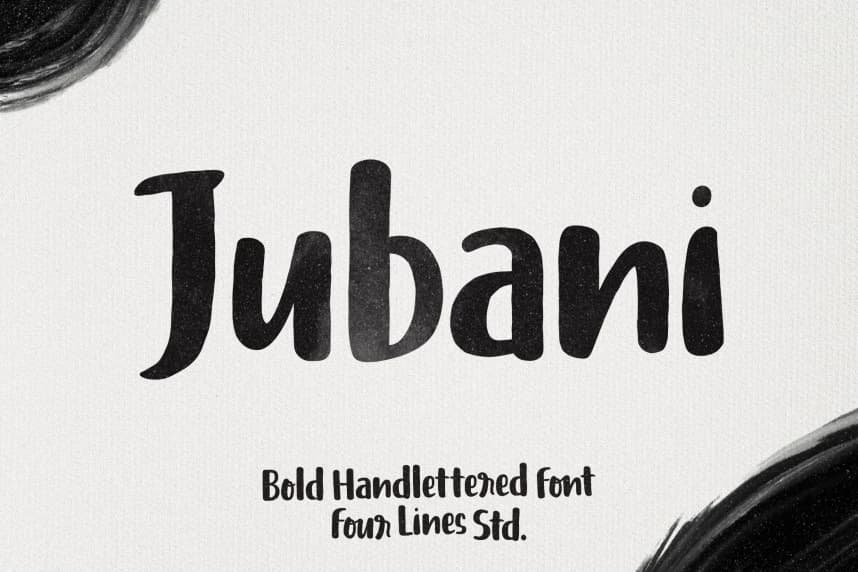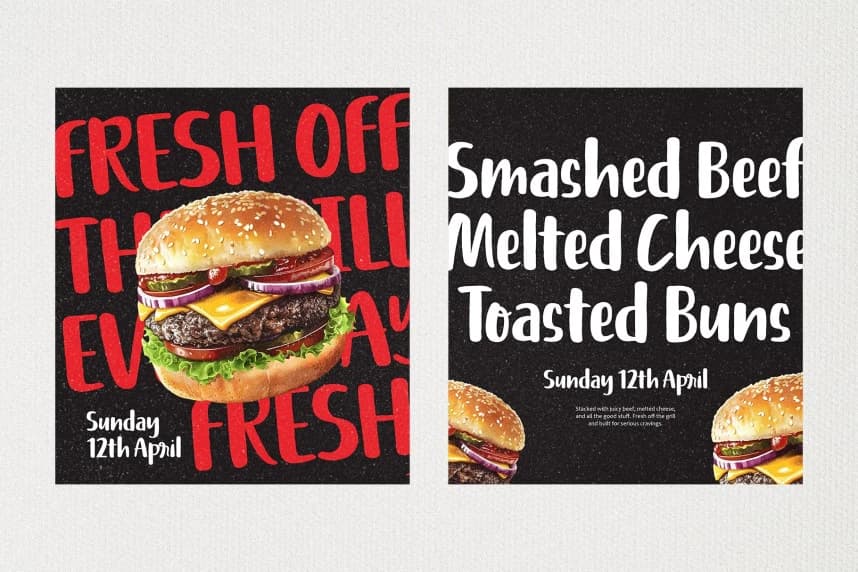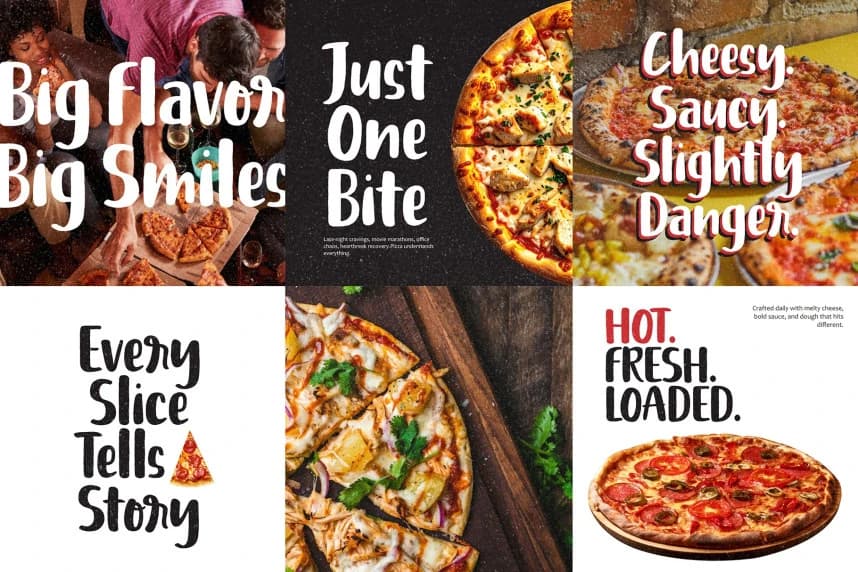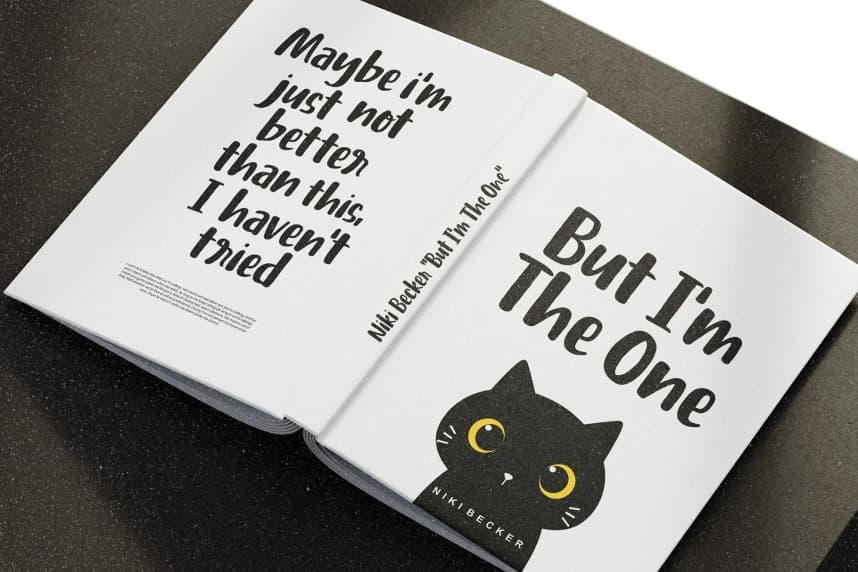
Jubani – Bold Handlettered Font
Jubani – Bold Handlettered Font is a bold handlettered font with a natural, rhythmic flow and plenty of character. Featuring smooth curves and harmonious organic details, this font brings a warm, relaxed, and expressive feel to every word.